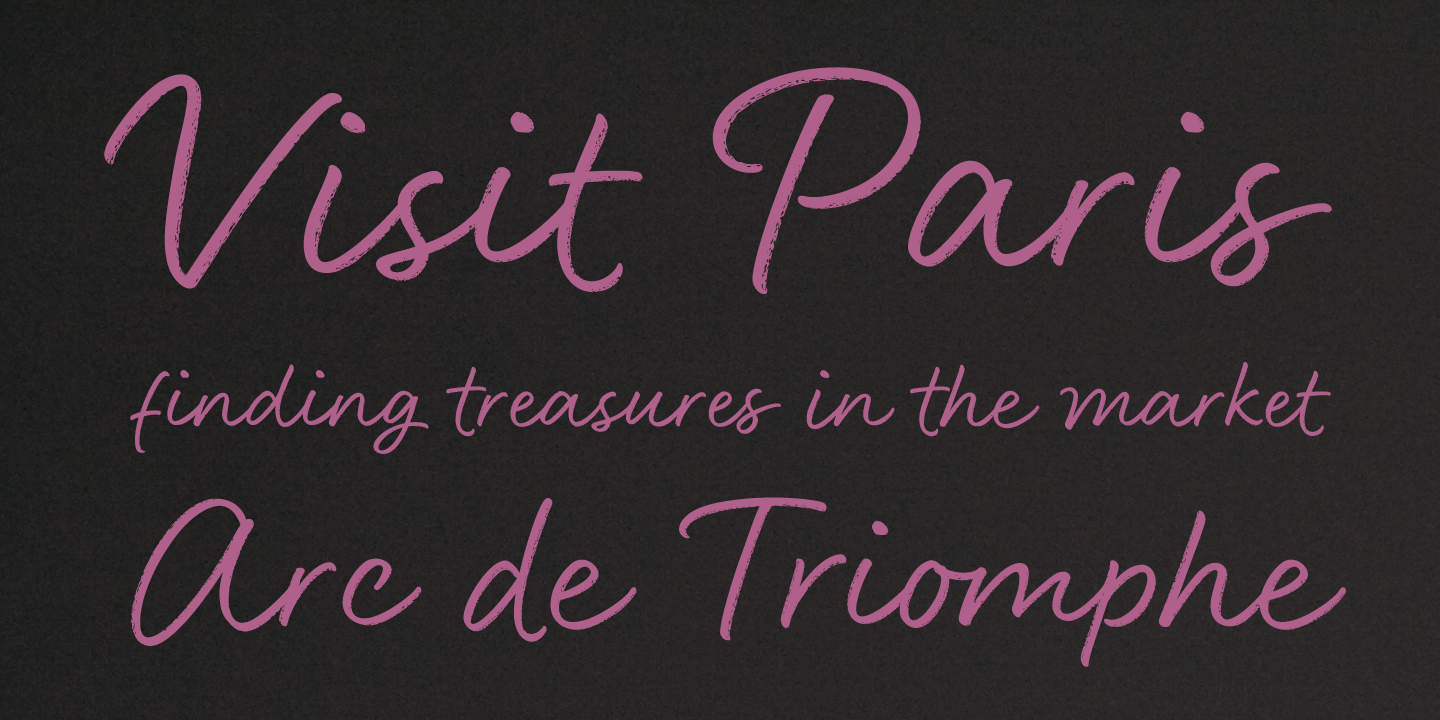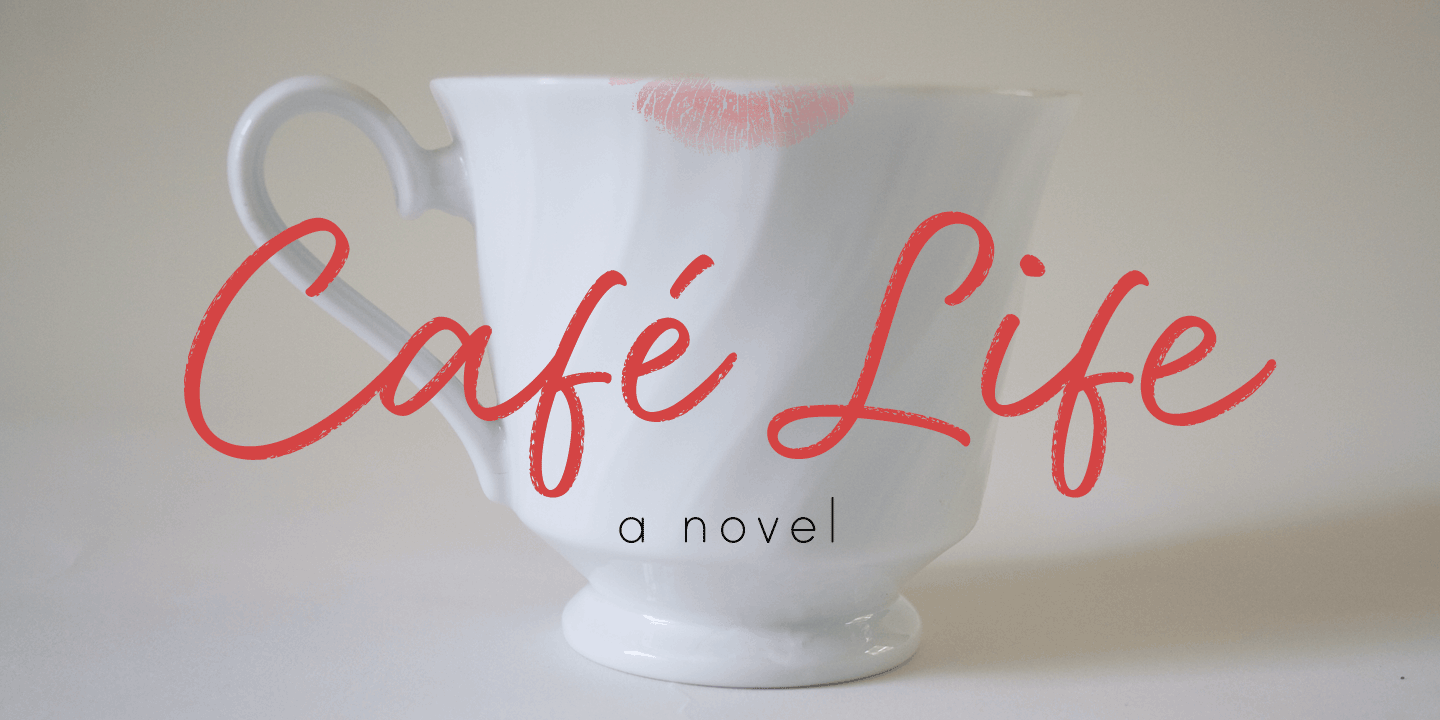
About Head Turn
Head Turn is a lightly textured handwriting font by Jess Latham. The subtle dry marker texture and opentype wizardry adds a unique realness and depth. It\’s got style and sophistication that make it destined to be a classic!